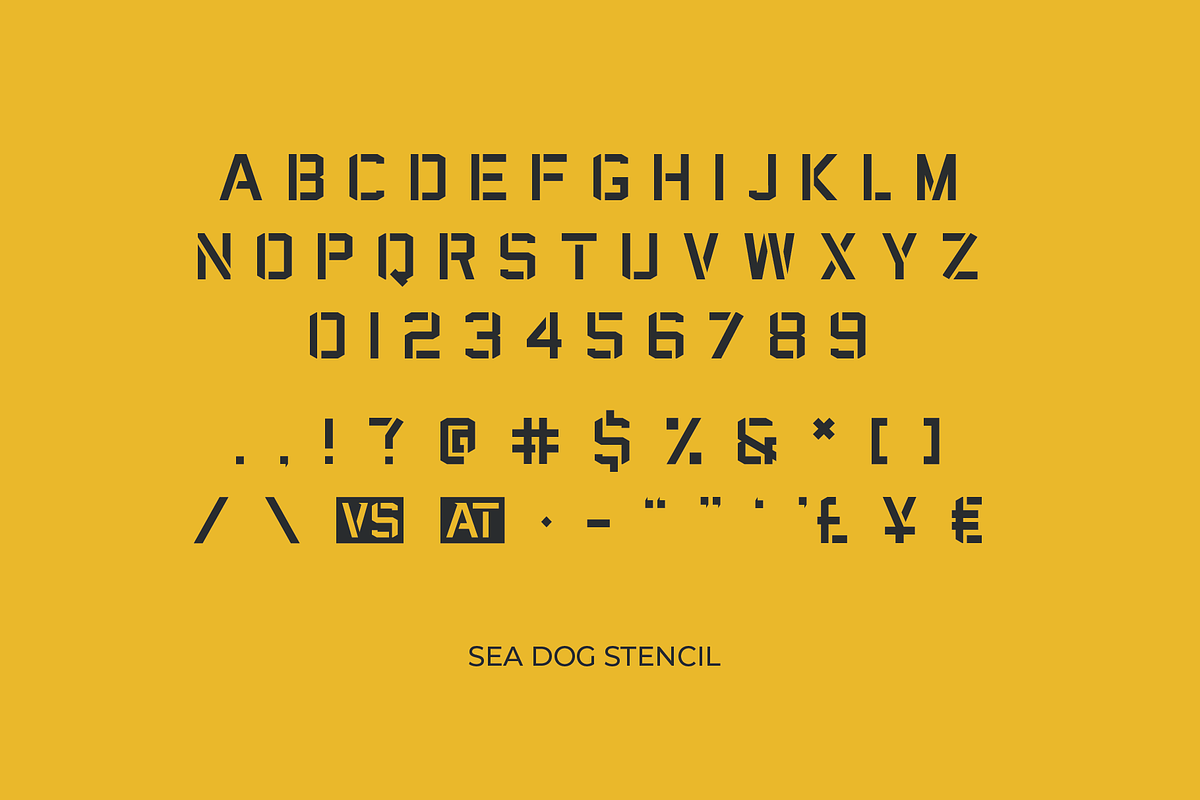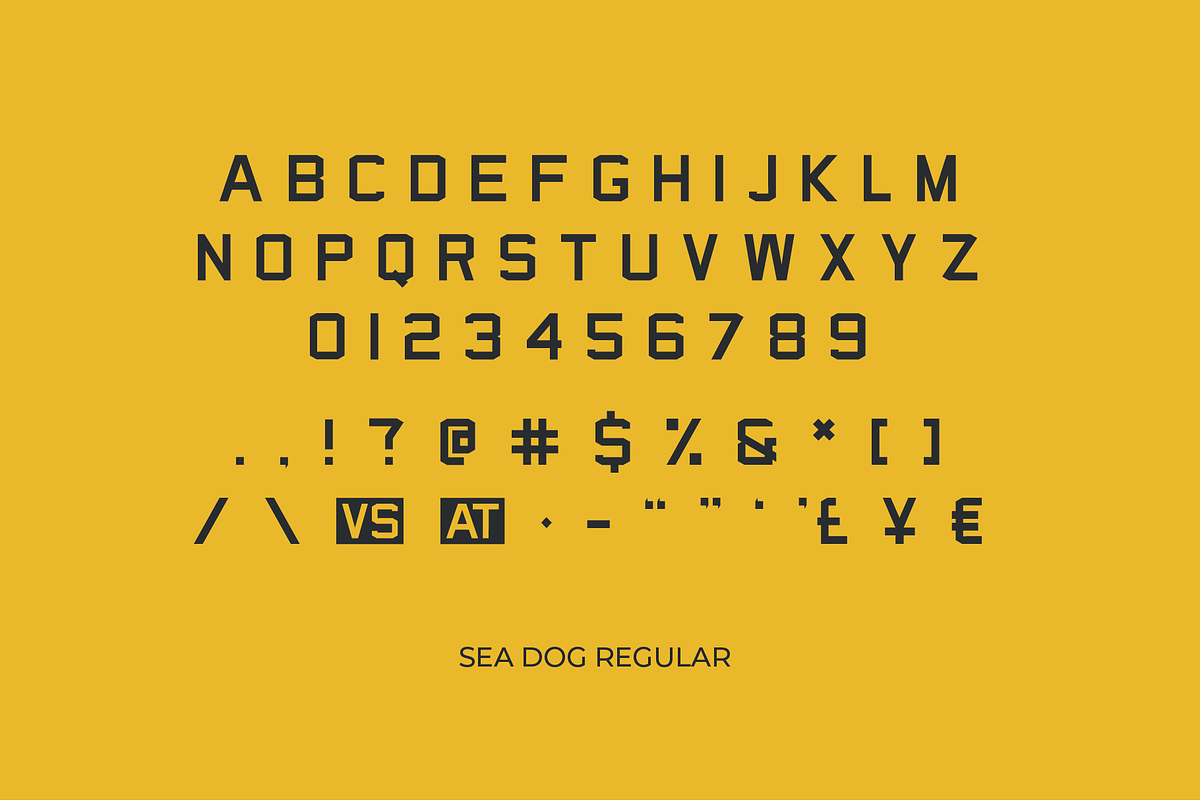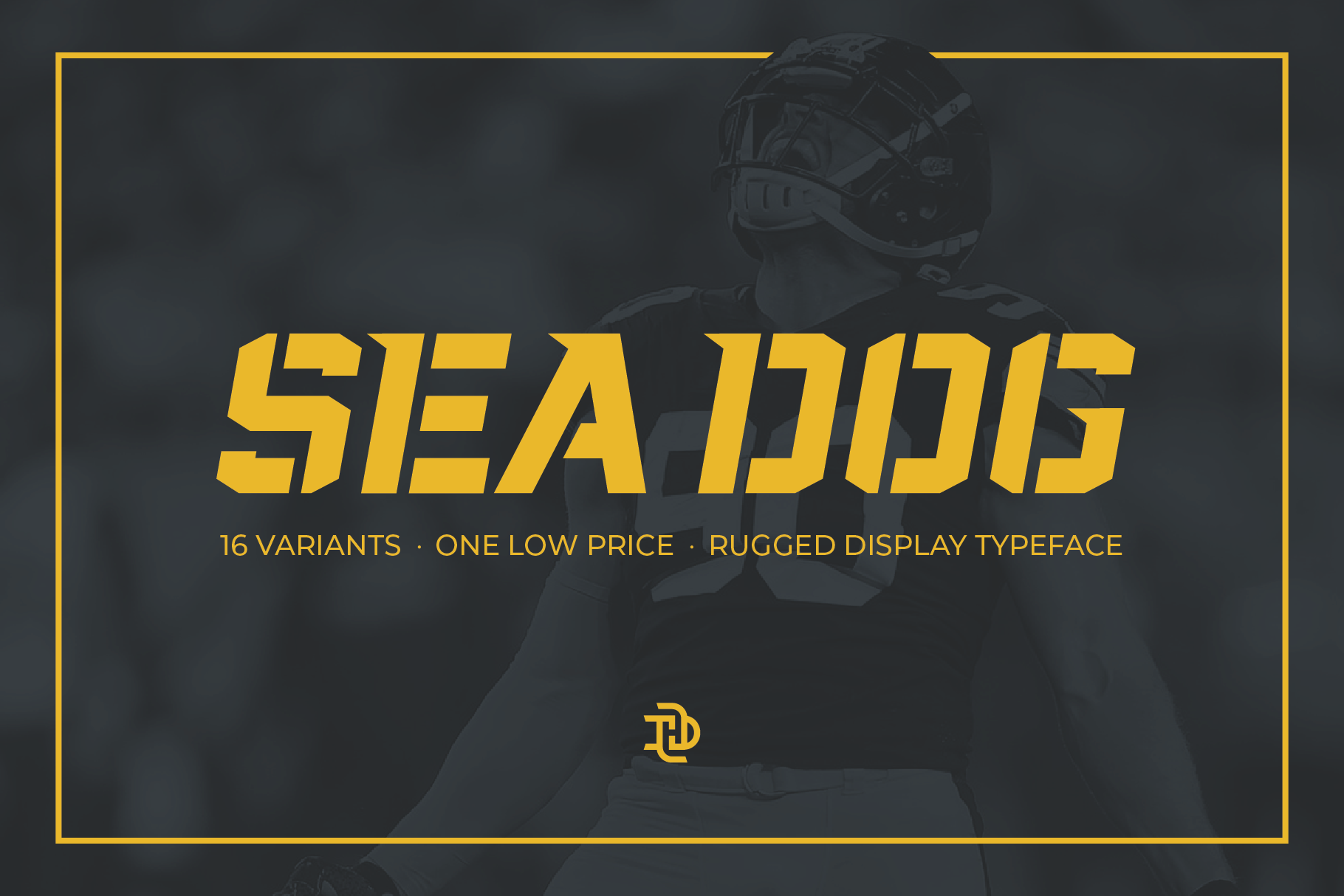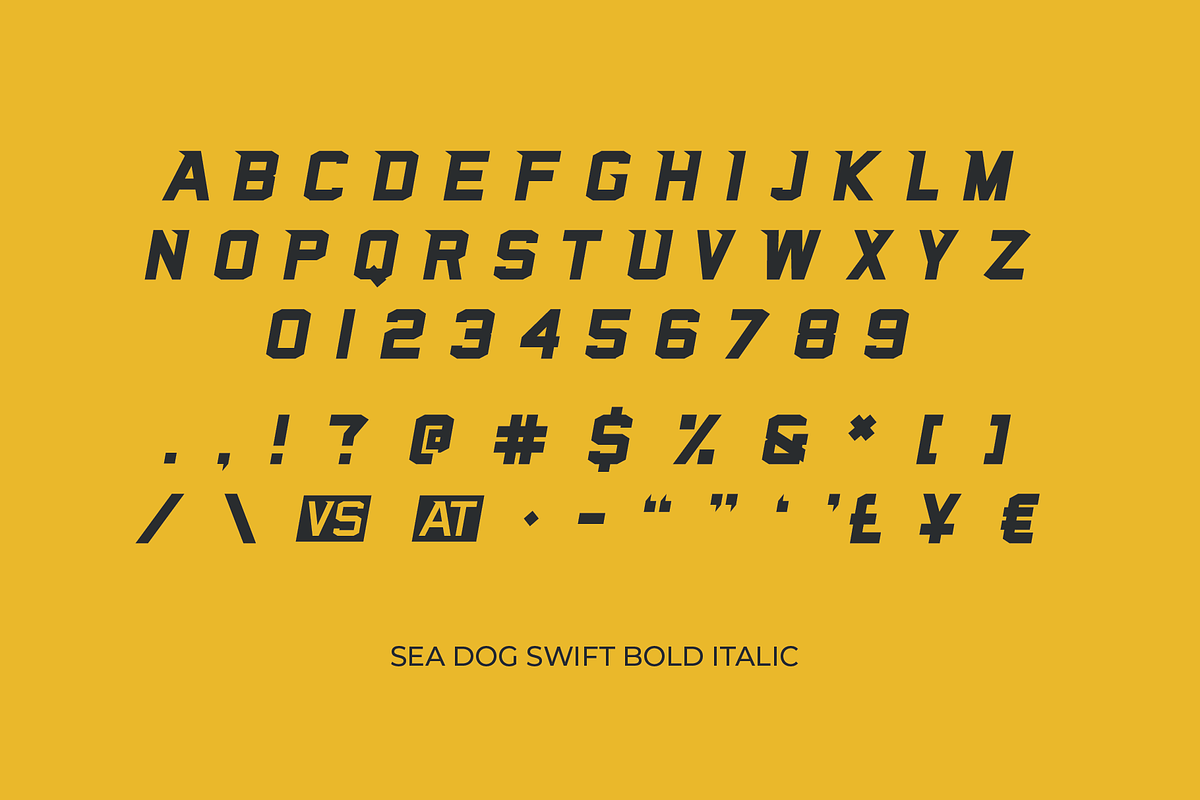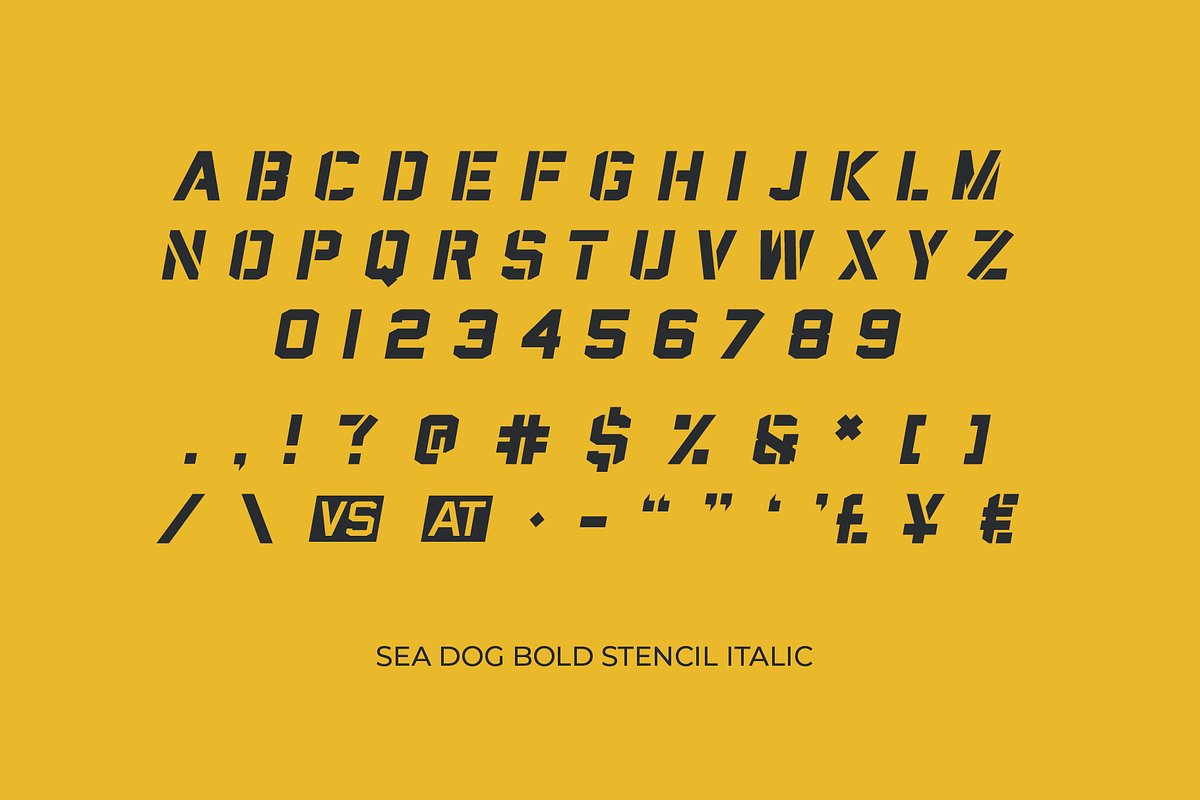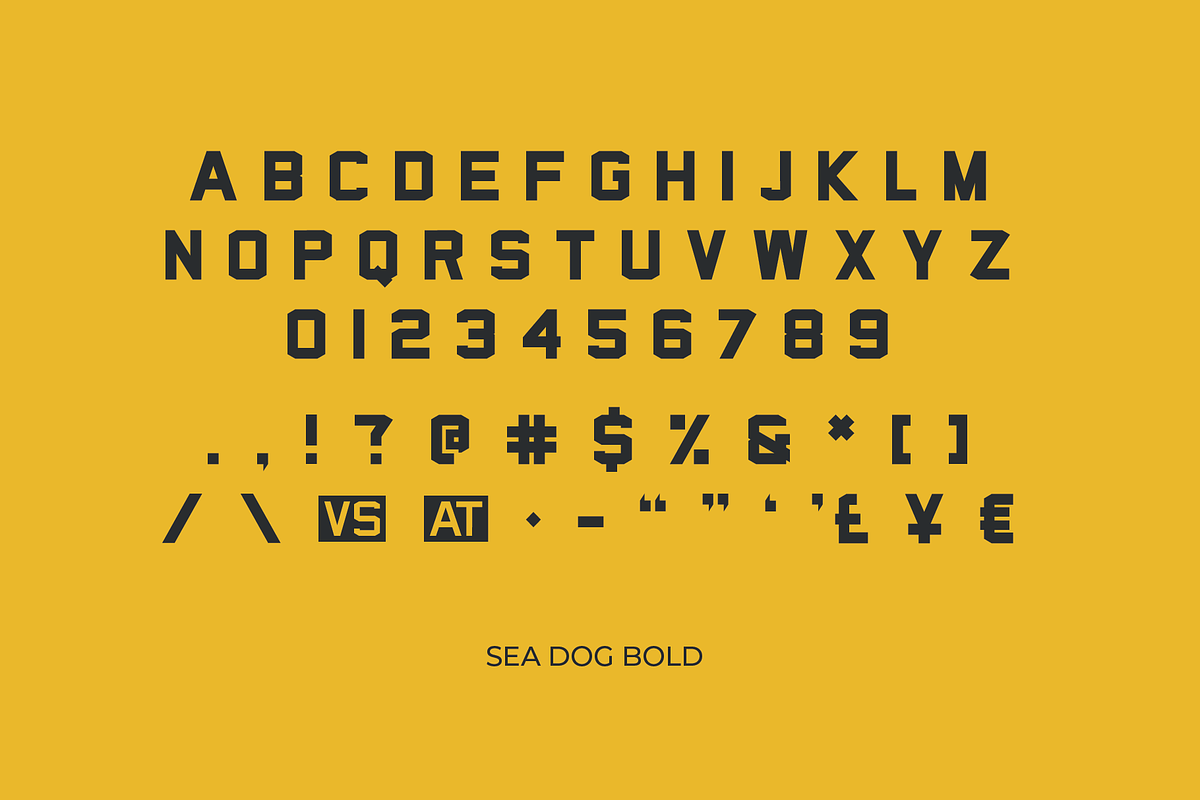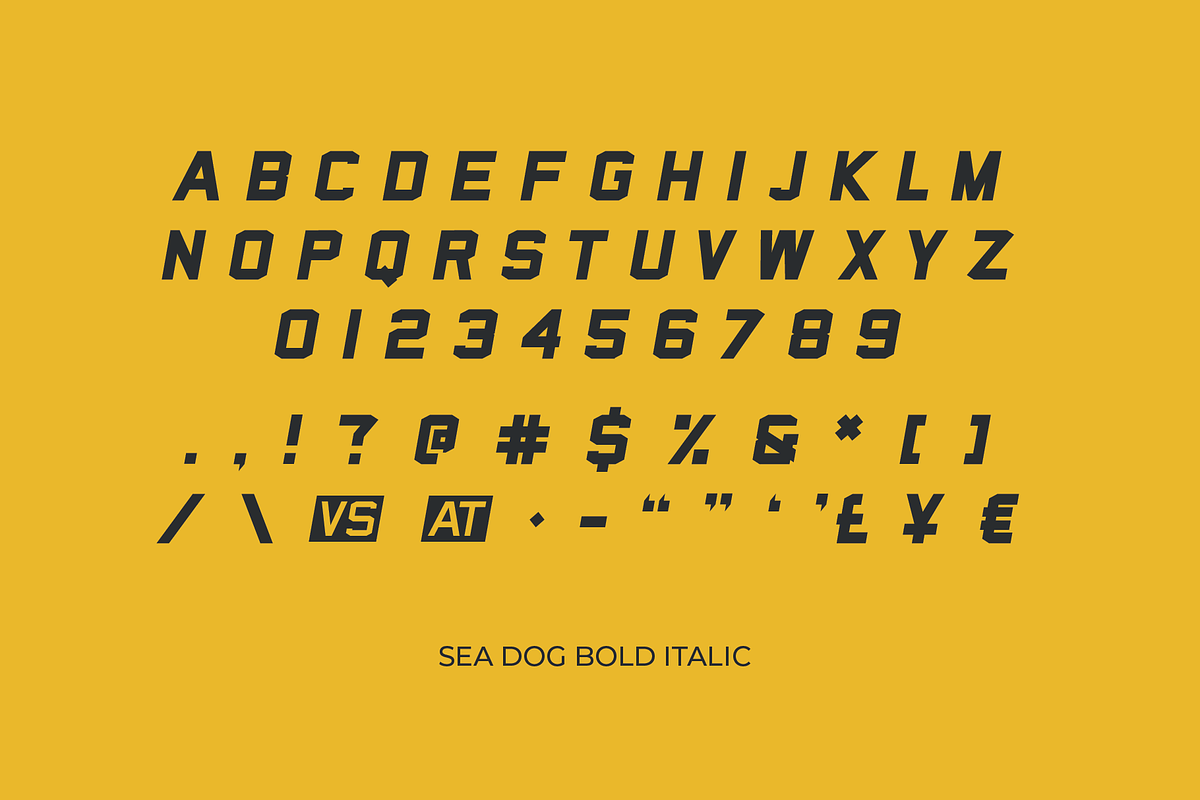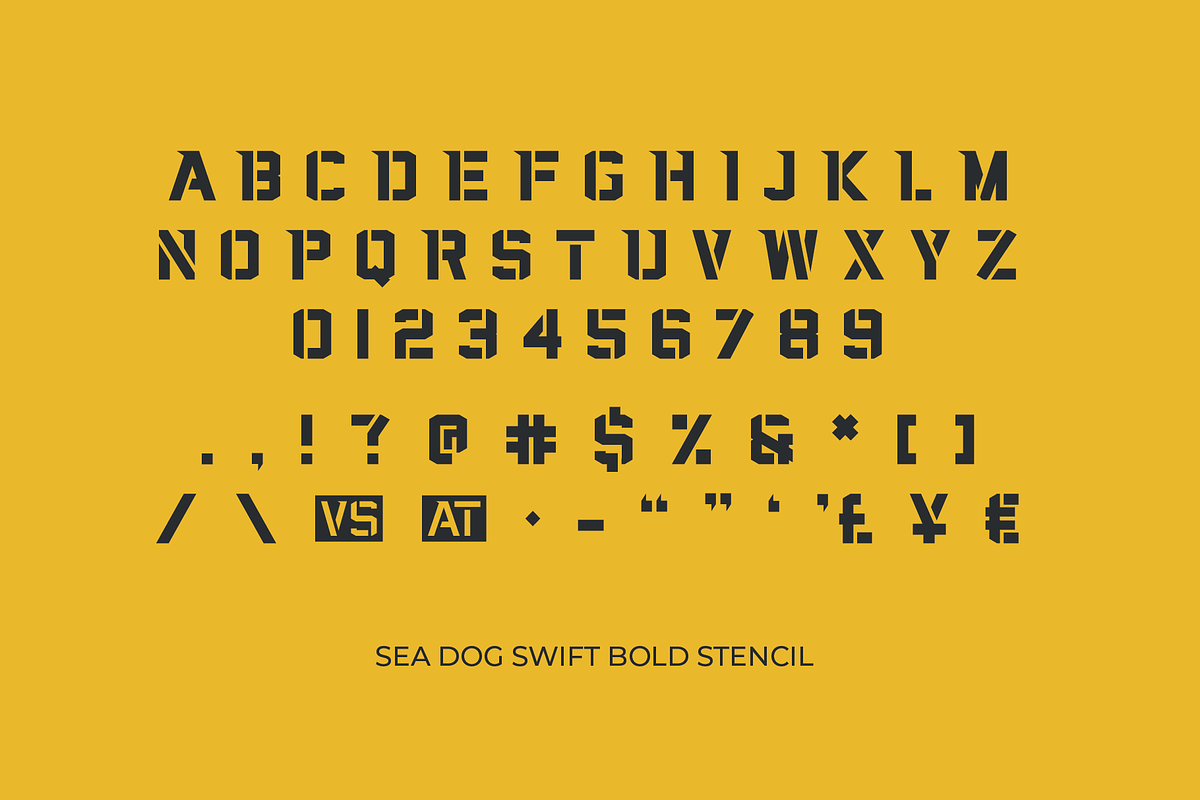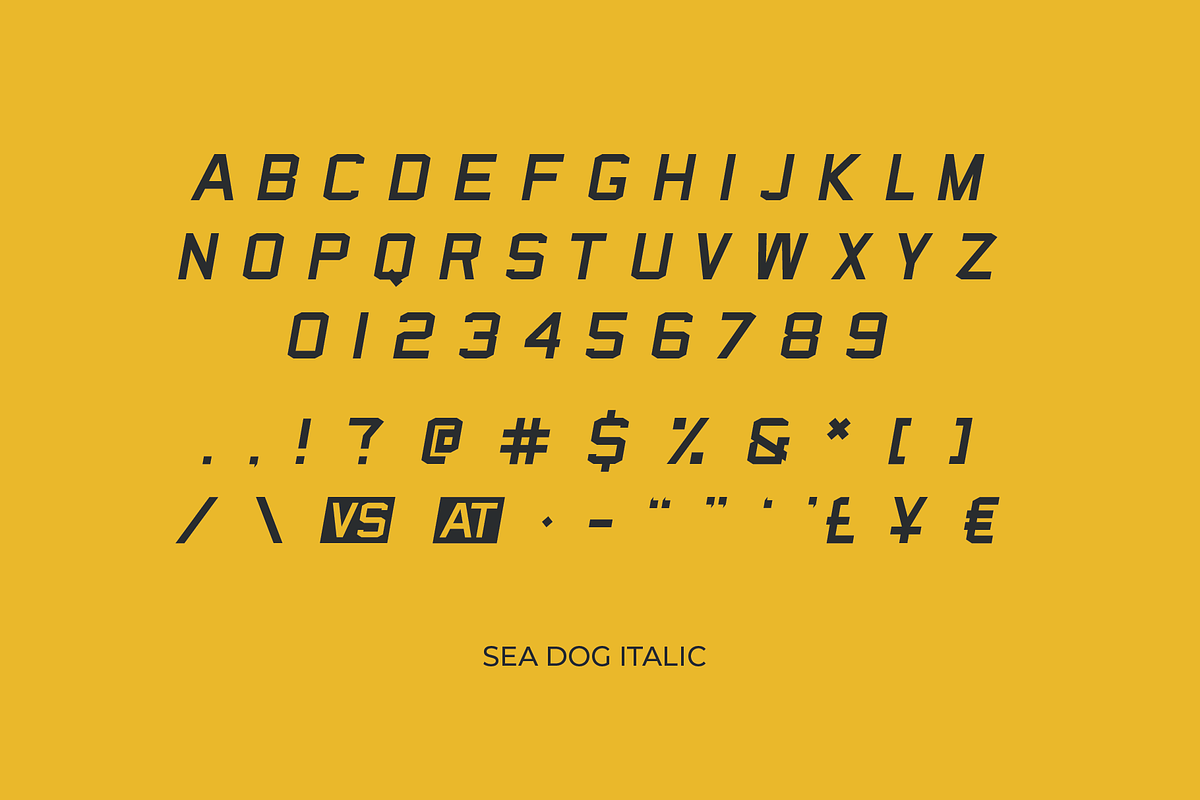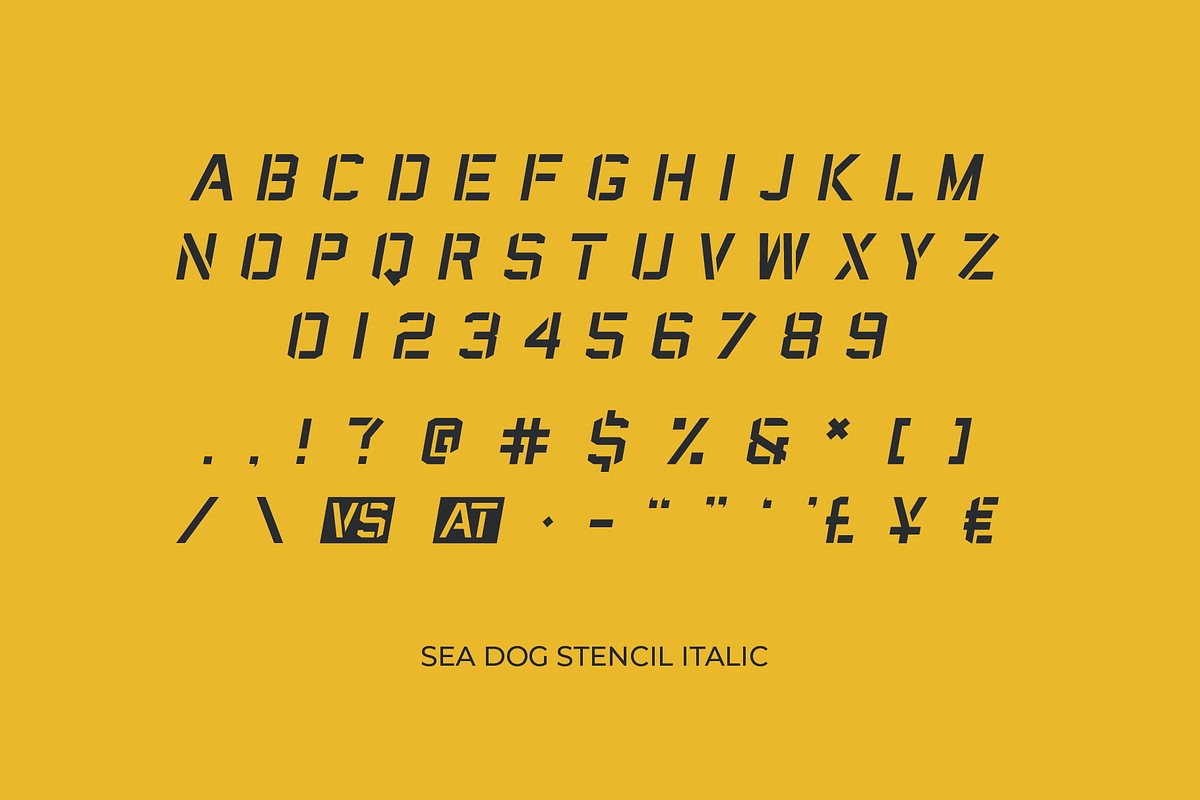
Sea Dog Bundle | Sports Display Font
Inspired by stencil lettering captured around the shipyard, Sea Dog is a hard-working font that is perfect for reinforcing your project with a no-nonsense display typeface. This is a bundle of the Regular and Swift versions of Sea Dog.
Available in 16 varieties, Sea Dog features solid & stencil characters, traditional block & swift block, as well as regular, italic, bold, & bold italic styles.
Sea Dog fits a variety of uses where a rugged typeface is needed. From bus wraps to book covers, posters to packaging, Sea Dog is a great choice when you need to add some hard-working grit and a ‘roll up your sleeves’ attitude to your project.
Sea Dog is not just for sailors – it’s comfortable in all kinds of scenarios: athletic branding and apparel, craft beer labels and packaging, restaurant menus and signage, retro badges and illustrations, even print and digital advertising.
- Hey, did you create any kerning pairs for this font?
- Yes, kerned pairs are set for capital letters. Typing in sentence case or lower case will not reflect these settings, and may result in some funky-looking strings of text.